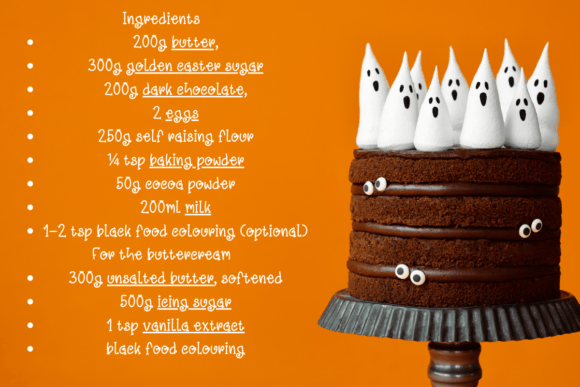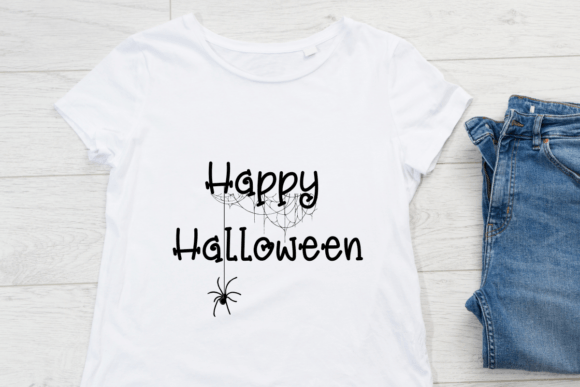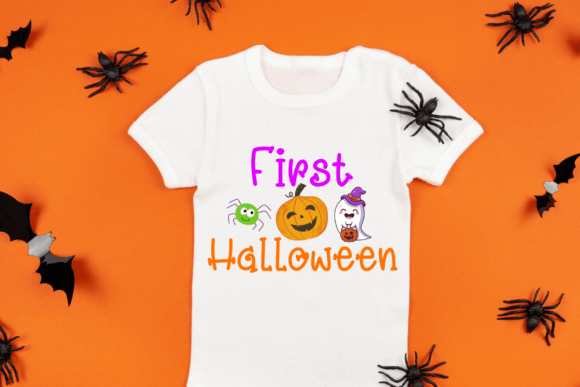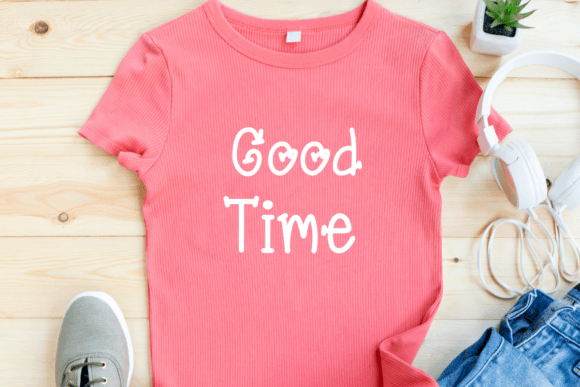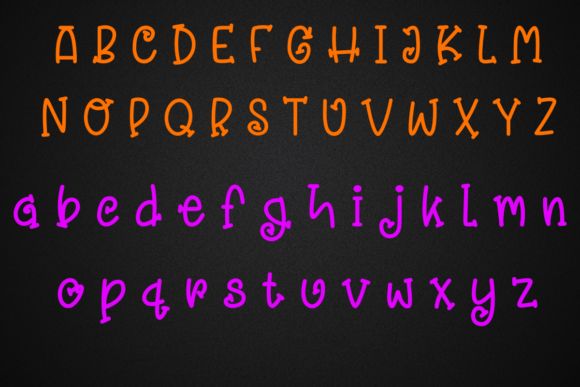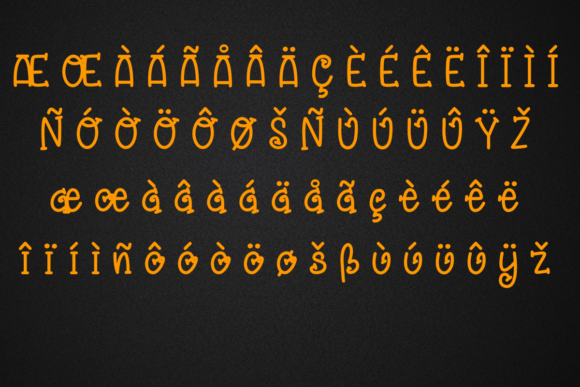
Halloween Pumkins Font – Free Download
Introduction to Halloween Pumkins Font
Halloween Pumkins is a playful handwritten font.
Use it to create spectacular designs as it would be an awesome addition to your fun projects such as Easter, back to school, wedding, party decorations, invitations, greeting cards and so much more .
Key Features of Halloween Pumkins Font
Why Choose Halloween Pumkins Font?
Halloween Pumkins Font offers exceptional quality and versatility, making it a valuable addition to your design toolkit. Whether you’re creating for personal projects or commercial use, Halloween Pumkins Font delivers professional results.